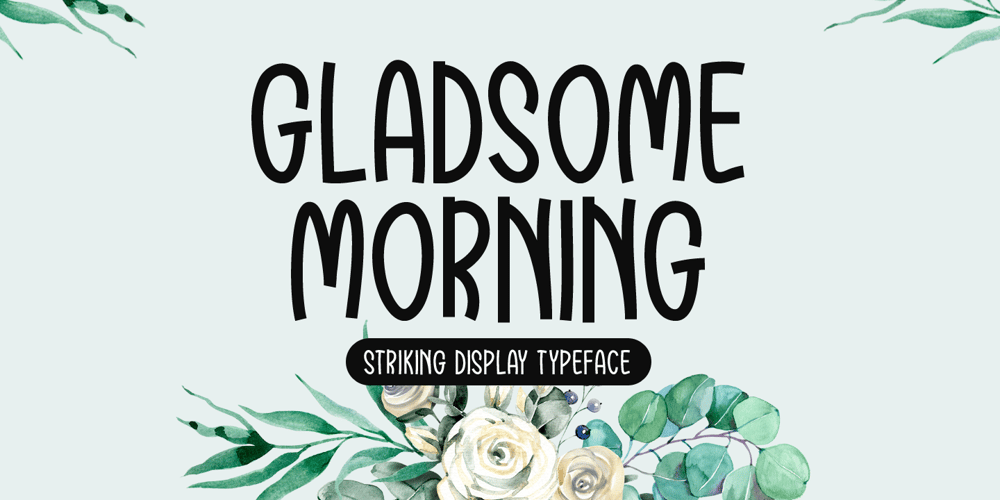
Gladsome Morning
Gladsome Morning font
Gladsome Morning Font Family was designed by Md Shohail Bhuian and published by Seemly Fonts. Gladsome Morning contains 1 styles and family package options. Gladsome Morning is a cool, clean, and simple display font. It will look stunning on any food packaging design, poster, flyer, or print. Use this font for your designs and explore its endless possibilities.